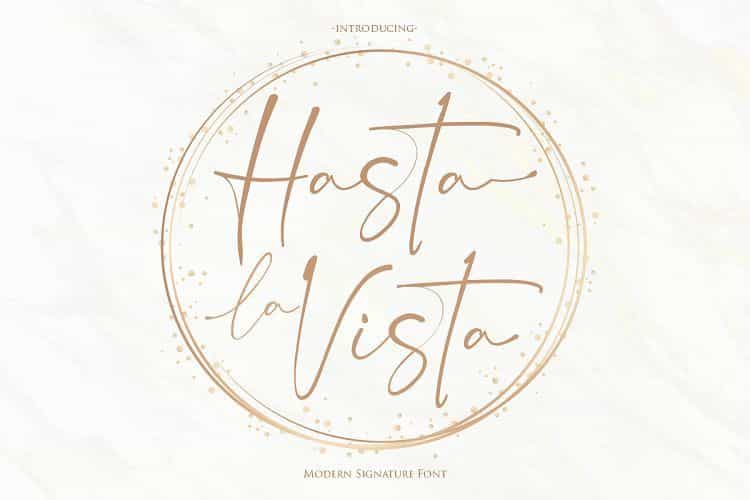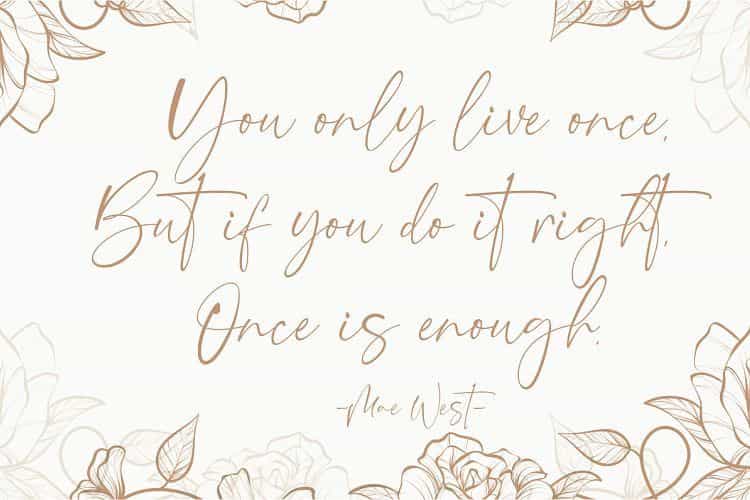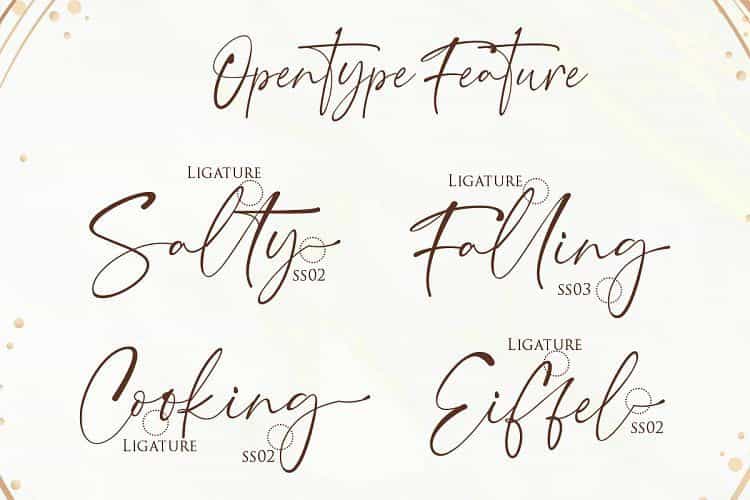
Presenting Hasta la Vista Font. It is design and shared by Gilar Studio. It is a clean and stylish handwritten font that has very natural strokes in every character. Be mesmerized by its big and complex lines! Ideal for establishing a unique logo and watermark for a photography or wedding service, Label, Logo, Magazine is perfect for an initial or branding logo signature.